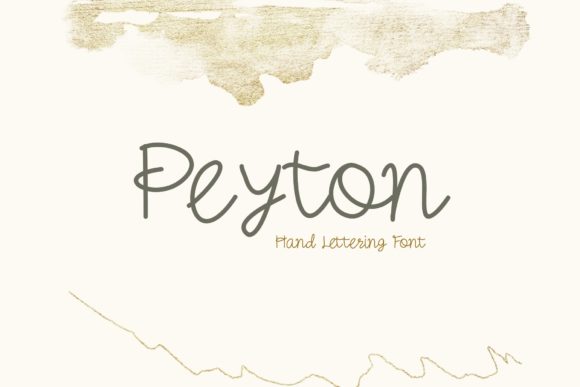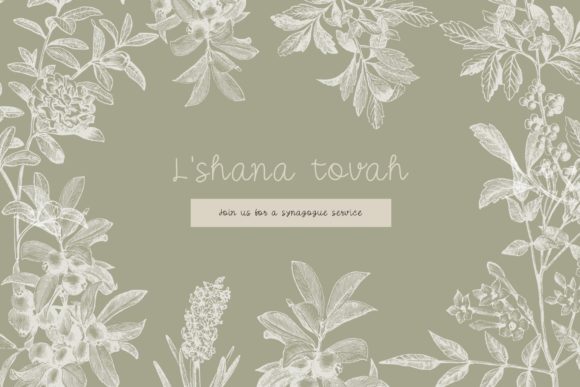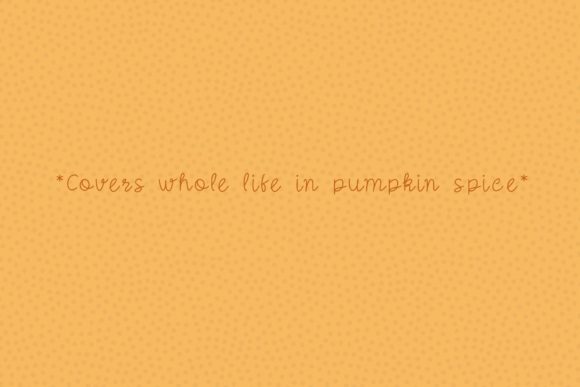
About Peyton Font
Peyton is a cute minimalist handwritten font perfect for Cricut projects, logos, branding, decor, mugs, pantry labels, wedding invitations, stickers, business cards, greeting cards, posters, social media, planner prints, and more! Its natural and unique style makes it incredibly fitting to a large pool of designs. The only limit is your imagination!